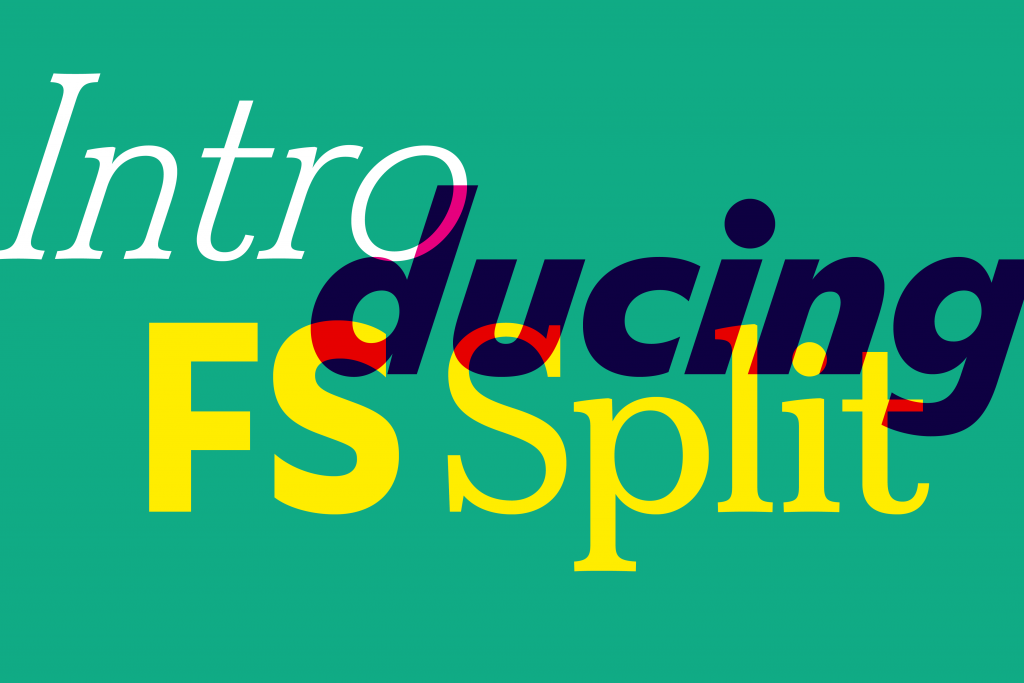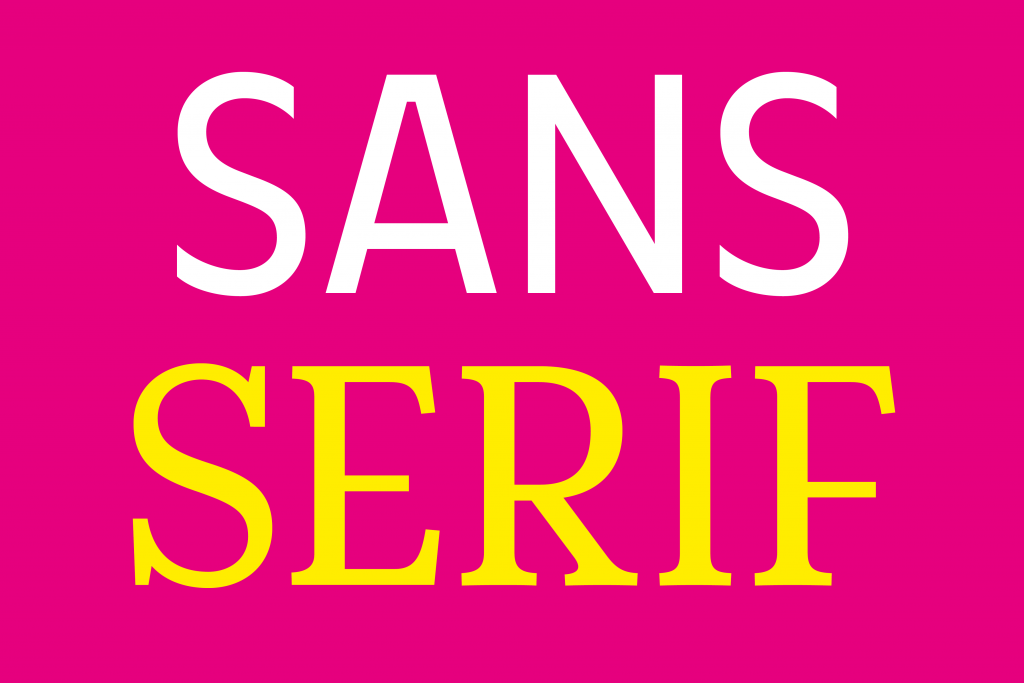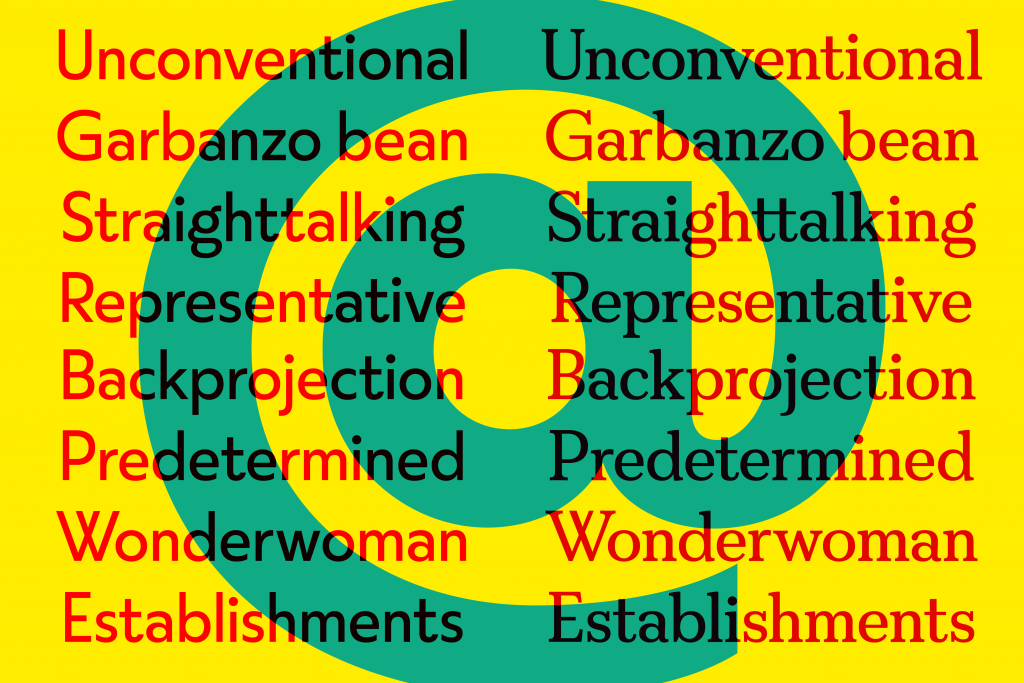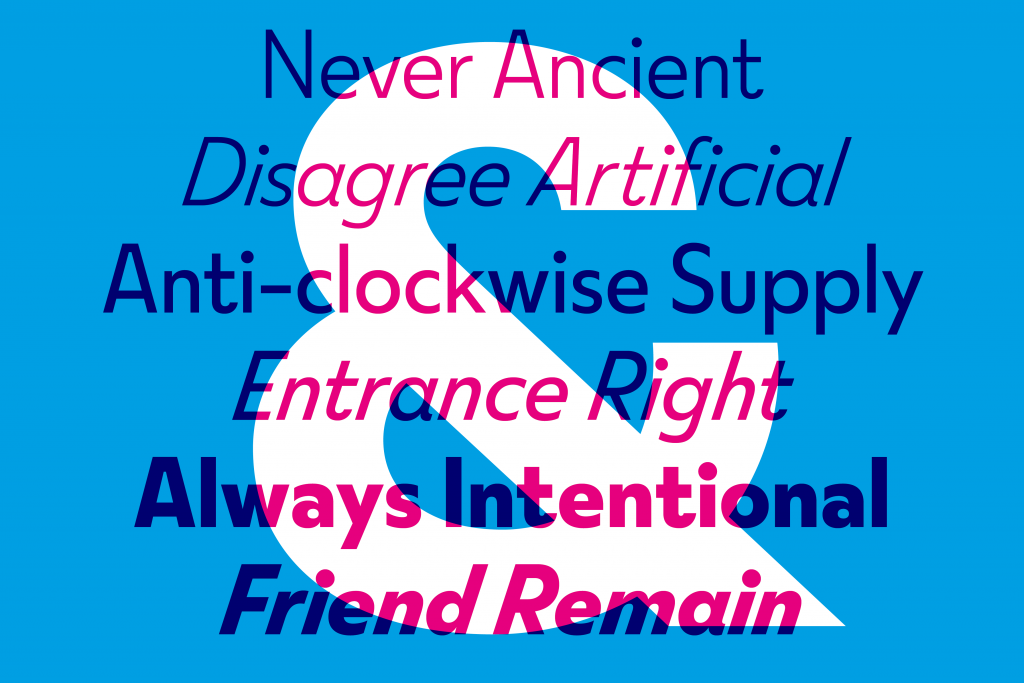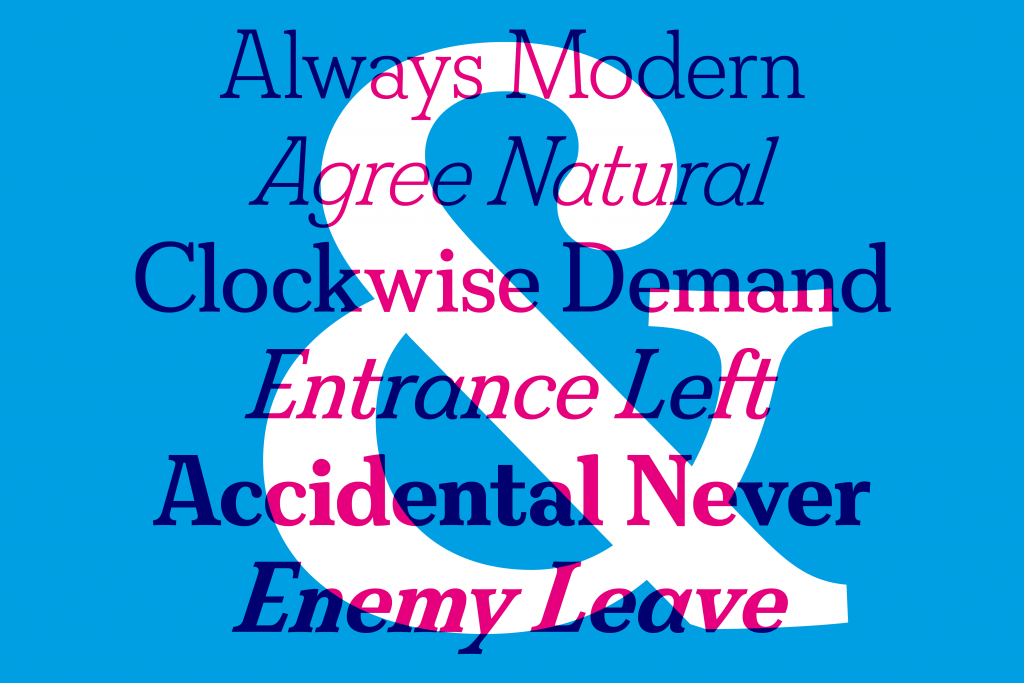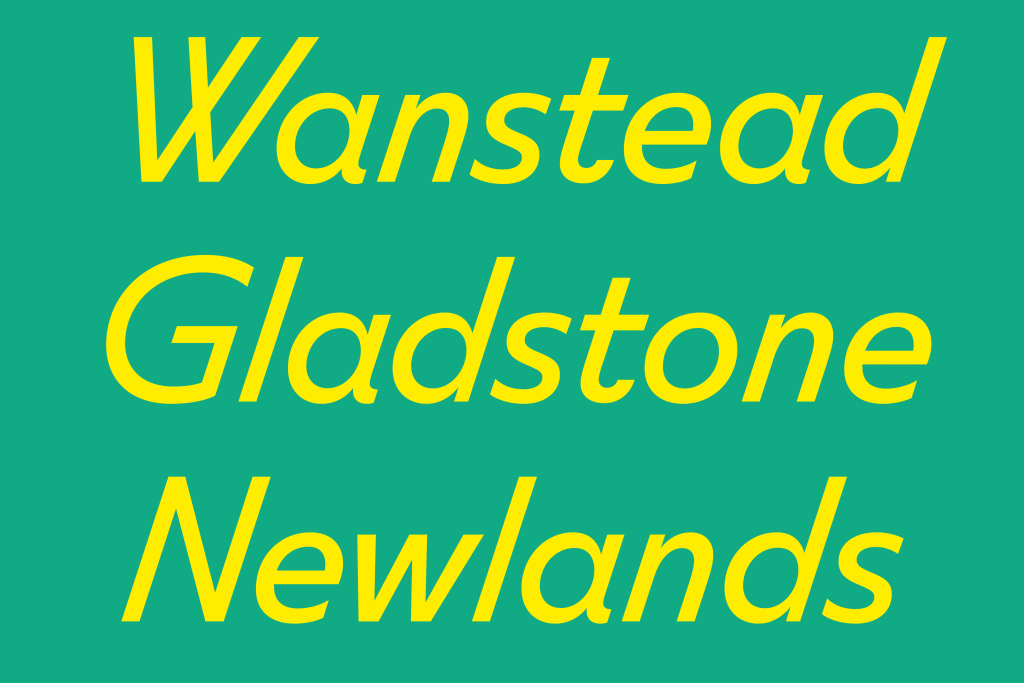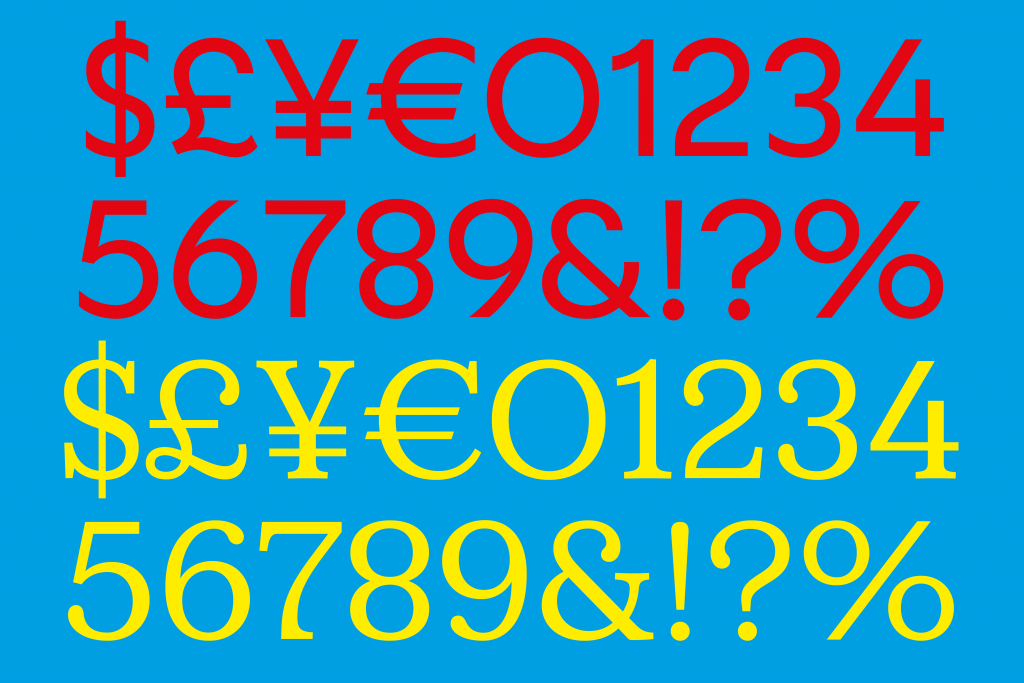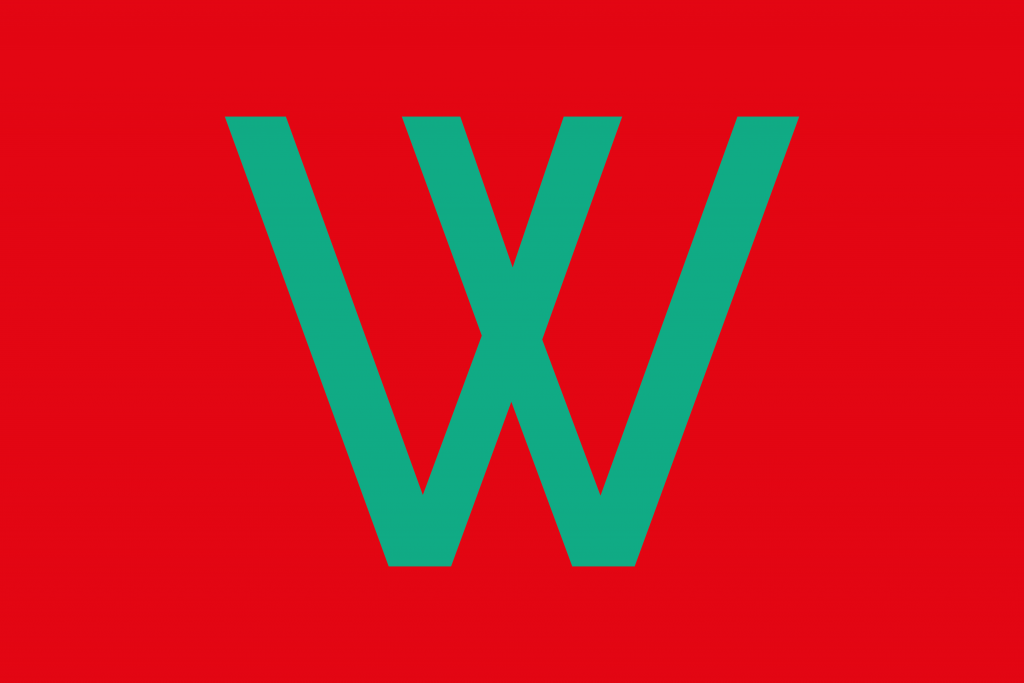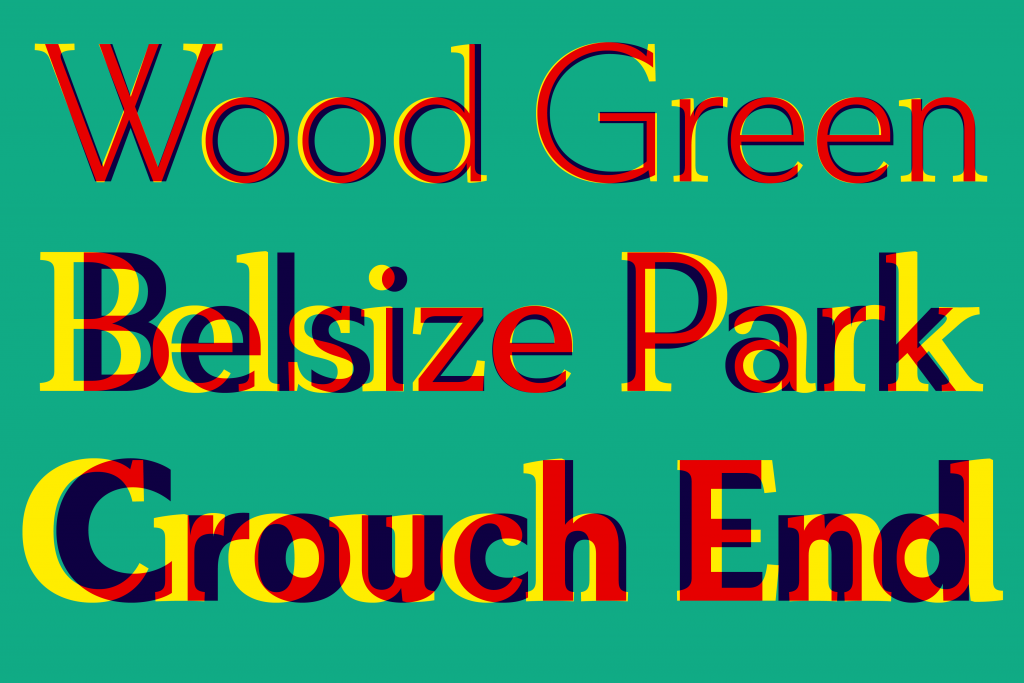
Name: FS Split Sans and Serif
Designers: Fernando Mello and Jason Smith
Foundry: Fontsmith
Release Date: November 2019
Back Story: Most dual-purpose items are improbable propositions, unlikely to satisfy users on either count (except as satire—anyone remember this genius bit from Saturday Night Live?). Which brings us to the question: can a single typeface somehow be a serif and a sans serif at once? Fontsmith founder Jason Smith decided to find out, challenging designer Fernando Mello to create a fresh, unexpected font that would be slightly imperfect and unrefined, even a little eccentric. In preparation for the first sketches for FS Split Sans, Mello compiled moodboards of current visual trends containing everything from architecture and furniture to cars.
“We didn’t want both the sans and serif to be overly consistent with each other, like most type families that contain sans and serif variants,” Mello says. “So we adapted the proportions and characteristics of the sans (which was designed first) to a higher weight contrast for the serif. The two variants are in tune in terms of proportions, but have enough self-appeal to work on their own. If you look closely, both versions challenge the usual conventional shapes and structures of sans or serif typefaces in their own way.”
Why’s it called FS Split? “Split is two typefaces that are simultaneously complementary and contrasting,” says Michael C. Place, creative director and founder of Studio.Build, the London-based design studio that created the branding and promotional materials for the typeface launch. “We wanted a name that represented the love/hate relationship deeply rooted in this relationship, along with the idea of a split personality as well.” For inspiration, his team explored themes of duality in their research, looking to films for conflicting but emotionally-tied character pairs such as Fight Club’s Tyler Durden (Brad Pitt) and the unnamed narrator played by Ed Norton, and Jack and Wendy in The Shining (Jack Nicholson and Shelley Duvall).
What are its distinguishing characteristics? The sans has a geometric, circular look, and for its serif counterpart, the designers went in another direction by adopting the structure of transitional fonts as a starting point. The rationale was almost like imagining two siblings, related in size but with their own distinct visual characteristics. FS Split Serif has exaggerated circular counters and soft tear-shaped terminals, with more variation between thick and thin strokes than the sans. Both versions share eclectic proportions: wide round characters and straight narrow ones, long descenders and ascenders, a cap-height aligned with the ascenders; large dramatic dots over the ‘i’ and ‘j’; oversized top counters on ‘B’ and ‘3’; and some quirky letter shapes, like ‘W’ and ‘t’. The italics lean into the wind at an exaggerated 18-degree forward-slant.
What should I use it for? FS Split is flexible enough to use in communication projects where a bit of a twist is wanted, for everything from magazines and packaging to websites and branding. The serif version suits headlines, pull quotes, logos, and text while the sans works well at a range of sizes for body copy, diagrams, captions and callouts.
What other typefaces do you like to pair it with? Of course, the two halves of FS Split play nicely with each other.